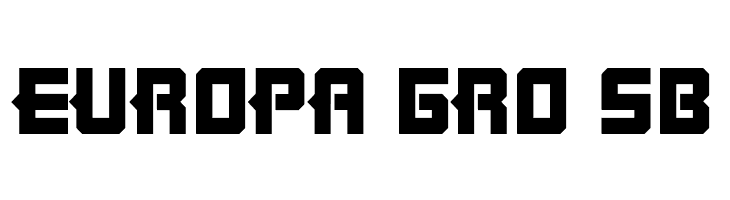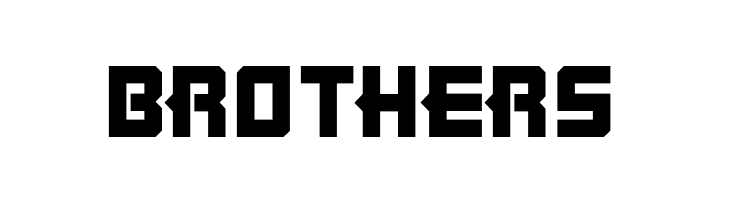
A bold, 3D italic font with outlined characters for a dynamic, modern look.
A bold, condensed, and italicized font with a modern and dynamic style.
A bold, expanded italic font with a dynamic and impactful style.
A bold, striped font with a modern, geometric style.
A bold, italicized font with a gradient line effect for a modern, dynamic look.
A bold, decorative font with a unique halftone effect and wide, blocky characters.
A bold, italicized font with a dynamic halftone effect, perfect for modern designs.
A bold, geometric font with a stencil-like, industrial design.
A bold, slanted font with a dynamic and modern style.
A bold, semi-italic font with a dynamic and modern style.
A bold, italic font with a dynamic, geometric style.
A bold, geometric font with sharp, angular characters.
An elegant cursive script font with smooth, flowing strokes.
A decorative, handwritten font with elongated, flowing lines and intricate loops.
A whimsical, handwritten font with elongated, flowing lines.
A bold, geometric font with angular shapes and a futuristic style.
A bold, decorative font with unique uppercase flair and consistent lowercase design.
A bold, flowing script font with elegant curves and smooth lines.
A bold, flowing script font with elegant curves and decorative flourishes.
A bold, jagged font with a hand-drawn, edgy style.
A classic, elegant script font with flowing, cursive letterforms.
A bold, impactful font with strong, thick strokes and a commanding presence.
A bold, cursive font with a flowing, handwritten style.
A bold, fluid script font with interconnected letters and a strong presence.
A classic, elegant handwritten script with fluid, connected letterforms.
A cursive, handwritten-style font with elegant, flowing characters.
An elegant, flowing script font with a natural handwriting style.
A bold, cursive font with distinctive underlines and fluid strokes.
A bold, cursive font with underlined characters, perfect for dynamic and stylish designs.
A stylish, handwritten script font with underlined characters and a light, elegant touch.
A stylish script font with elegant underlined characters.